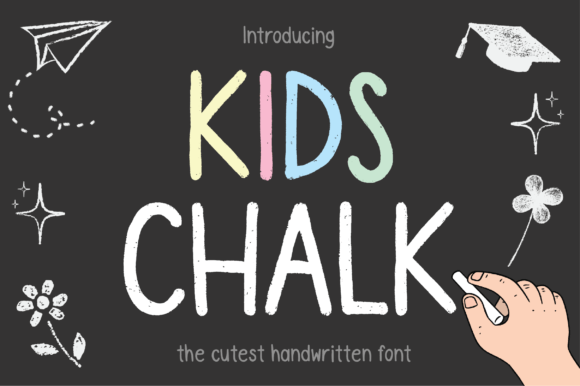
Introducing Kids Chalk Font, a captivating and fun-loving addition to your font collection. This delightful script font, created by SVG Bloom, is specifically designed to bring out the inner child in all of us. Whether you're a teacher looking to spruce up your classroom materials or a parent in search of the perfect font for your little one's birthday invitations, Kids Chalk is here to elevate your creations to new levels of excitement and creativity.
Imagine the joy and wonder that can be infused into your projects with this playful and whimsical font. Its handwritten appearance adds a personal touch, making it ideal for educational materials, menu boards, worksheets, greeting cards, and so much more. Let Kids Chalk unleash your imagination and transform ordinary designs into extraordinary works of art.
Crafted with meticulous attention to detail, Kids Chalk Font brings a sense of authenticity to your creations. Its natural strokes and imperfect lines evoke the charm of a child's innocent scrawl, instantly capturing attention and evoking a sense of nostalgia. With every letter, Kids Chalk tells a story, taking your audience on a journey back to carefree childhood days.
But Kids Chalk Font isn't just about aesthetics; it's also about functionality. With its easy-to-read characters, this font ensures clarity and legibility, making it suitable for a wide range of applications. Whether you're designing a menu board for a trendy cafe or creating engaging worksheets for young learners, Kids Chalk Font strikes the perfect balance between style and readability.
Unlock a world of possibilities with Kids Chalk Font. Its versatility allows you to explore various design concepts and adapt it to suit your unique style. From elegant wedding invitations to playful party decorations, this font adapts effortlessly, ensuring your creations always stand out from the crowd.
When you choose Kids Chalk Font, you're not just selecting a font; you're embracing a feeling. Its cheerful and lighthearted nature will resonate with your audience, creating an emotional connection that goes beyond words. Spark joy, inspire creativity, and leave a lasting impression with every stroke of Kids Chalk Font.